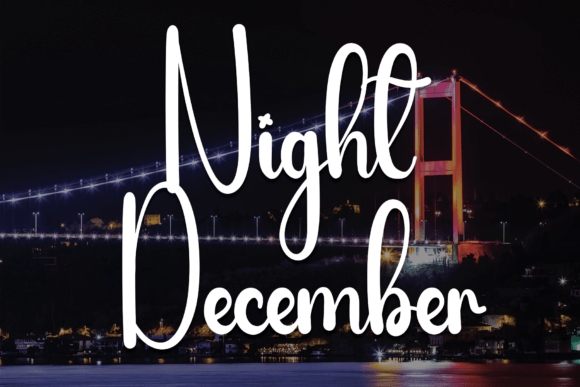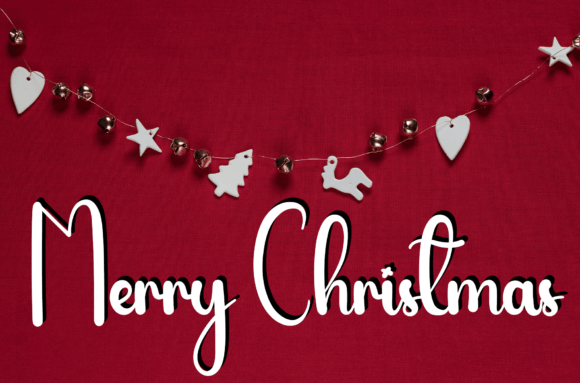
About Night December Font
The Night December font is a beautifully crafted handwritten typeface that brings elegance and warmth to any design project. It is a versatile font that suits a wide range of creative needs, from wall displays and wedding invitations to social media logos and advertising materials.
Ideal for Wedding Invitations and Stationery
This font’s delicate and stylish handwritten strokes make it an excellent choice for wedding invitations and related stationery. It adds a personal, heartfelt touch, making your event designs feel both unique and elegant.
Versatility Across Various Designs
Night Decemberfont shines not only in event-related projects but also in branding, product packaging, and labels. It works well for product design, photography watermarks, and promotional materials, providing a handcrafted feel that enhances the visual appeal.
Contemporary and Timeless Appeal
The font balances a modern aesthetic with classic handwriting styles. Its clean lines and smooth flow ensure readability and elegance, making it perfect for both digital and print use. Night Decemberfont helps your work stand out with its graceful yet approachable style.
Why Use Night December Font?
Whether you are designing logos, social media graphics, or printed materials, Night Decemberfont offers a unique, stylish handwritten touch. It transforms ordinary designs into memorable and sophisticated pieces. Add this font to your collection and elevate your creative projects with timeless charm and personality.